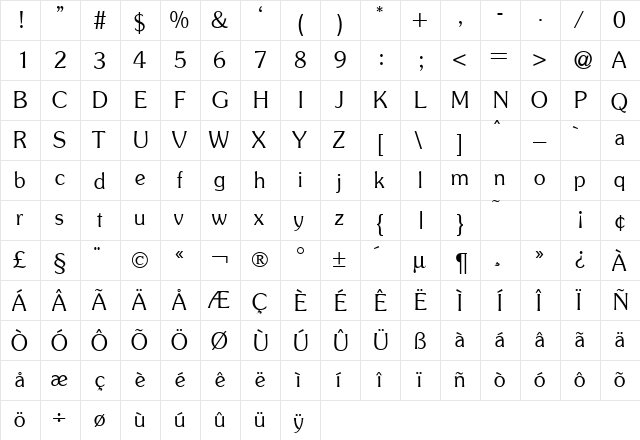
SoulLightDB Normal
Design Context for SoulLightDB Typeface
SoulLightDB takes a measured approach to typography — its balanced proportions and neutral character make it a reliable workhorse for both digital and print work. Its slender proportions lend an understated elegance to any composition.